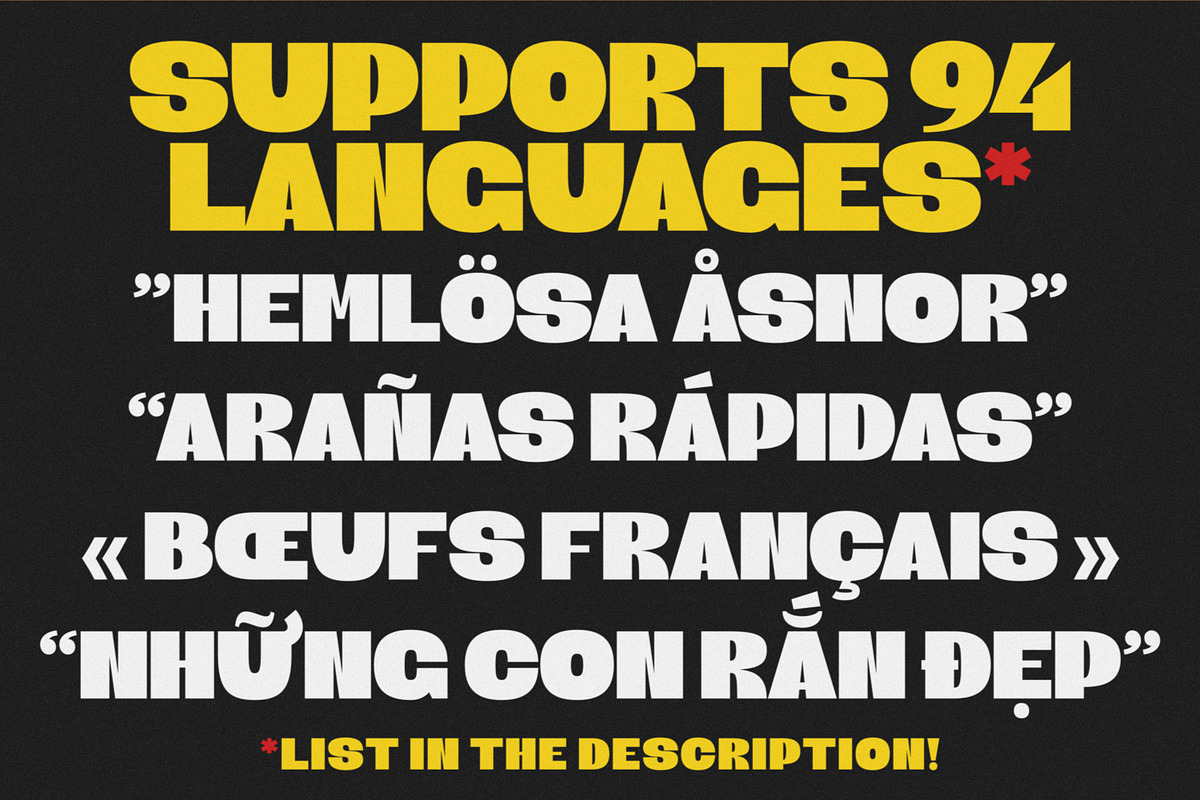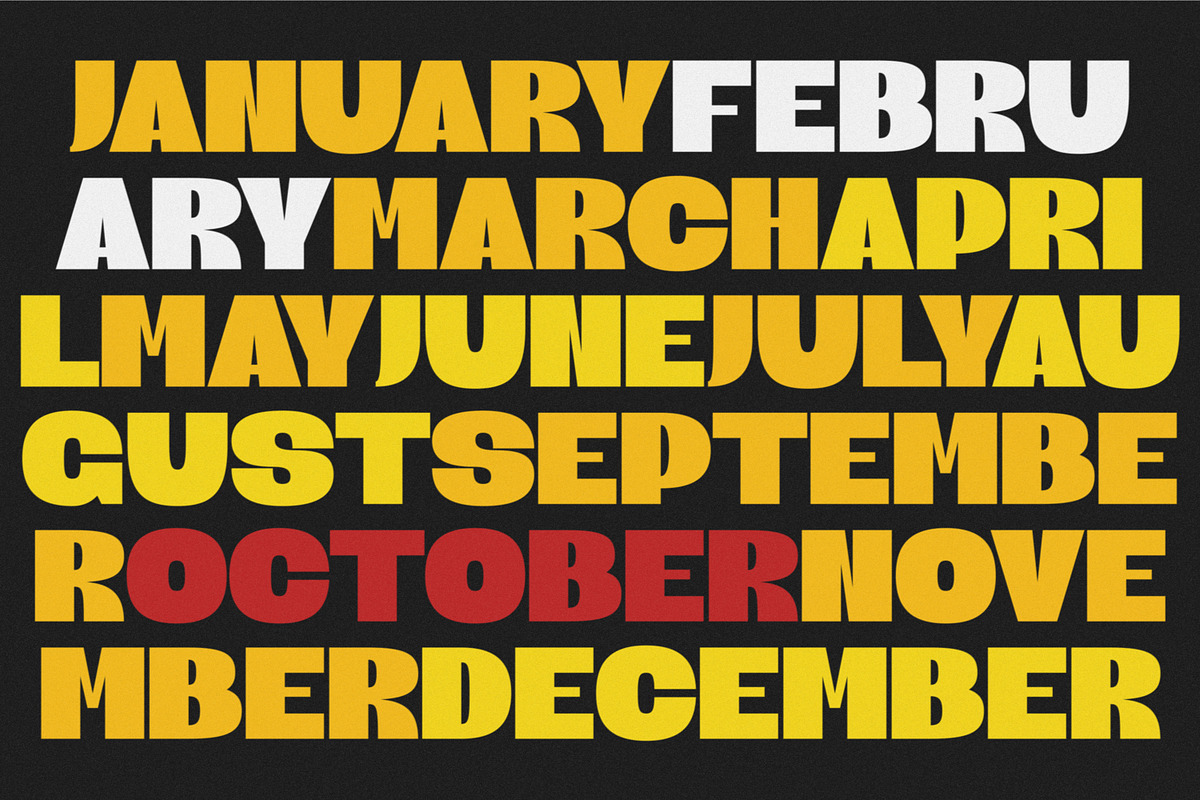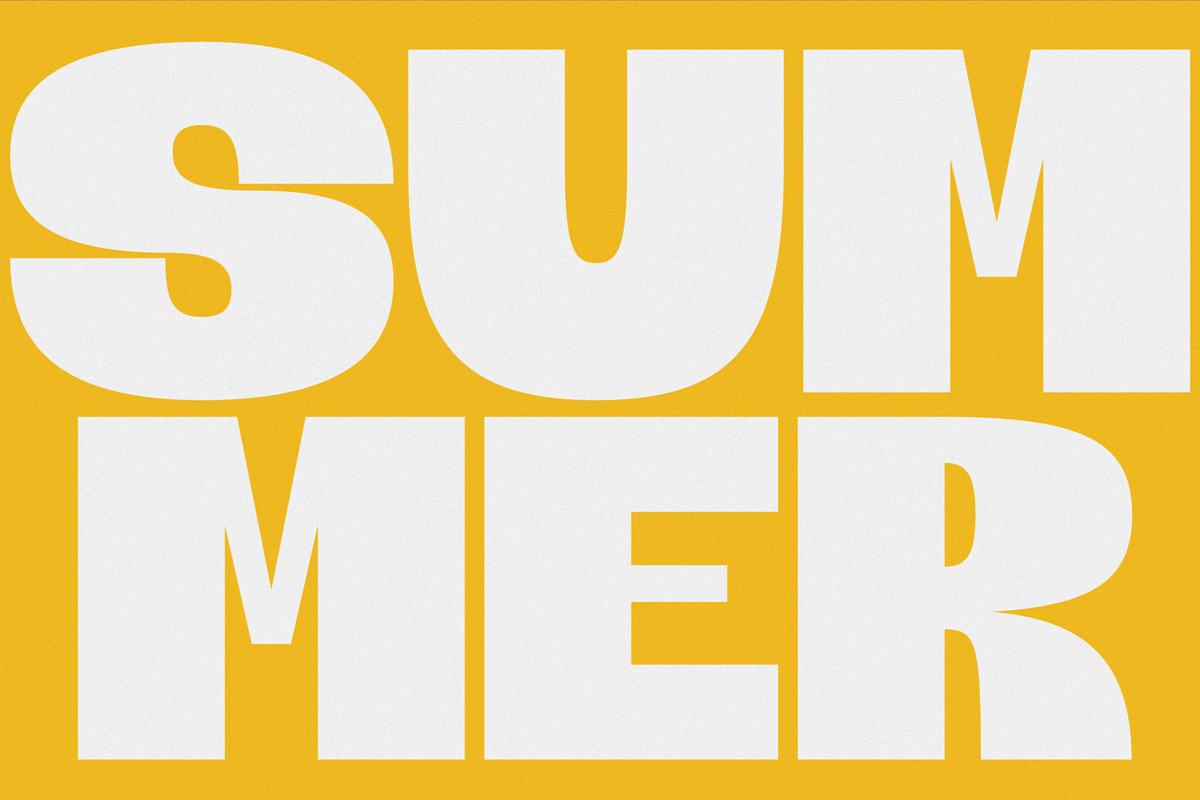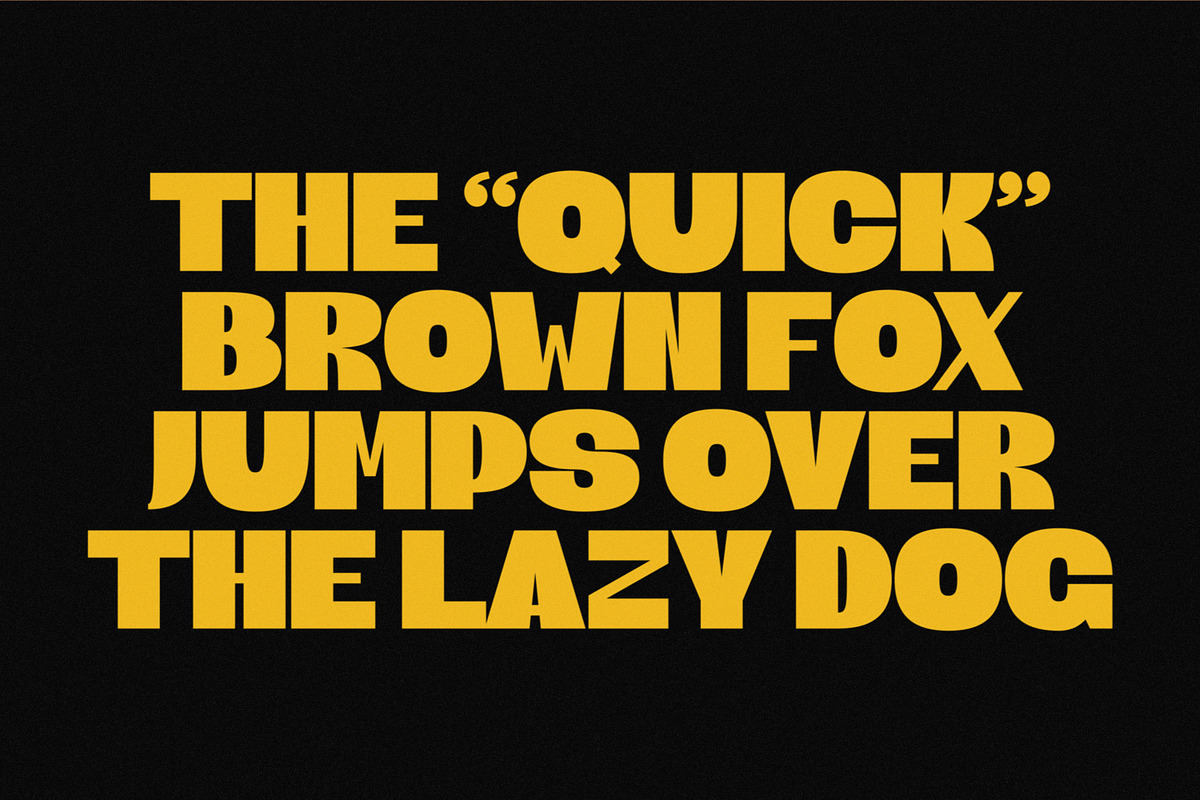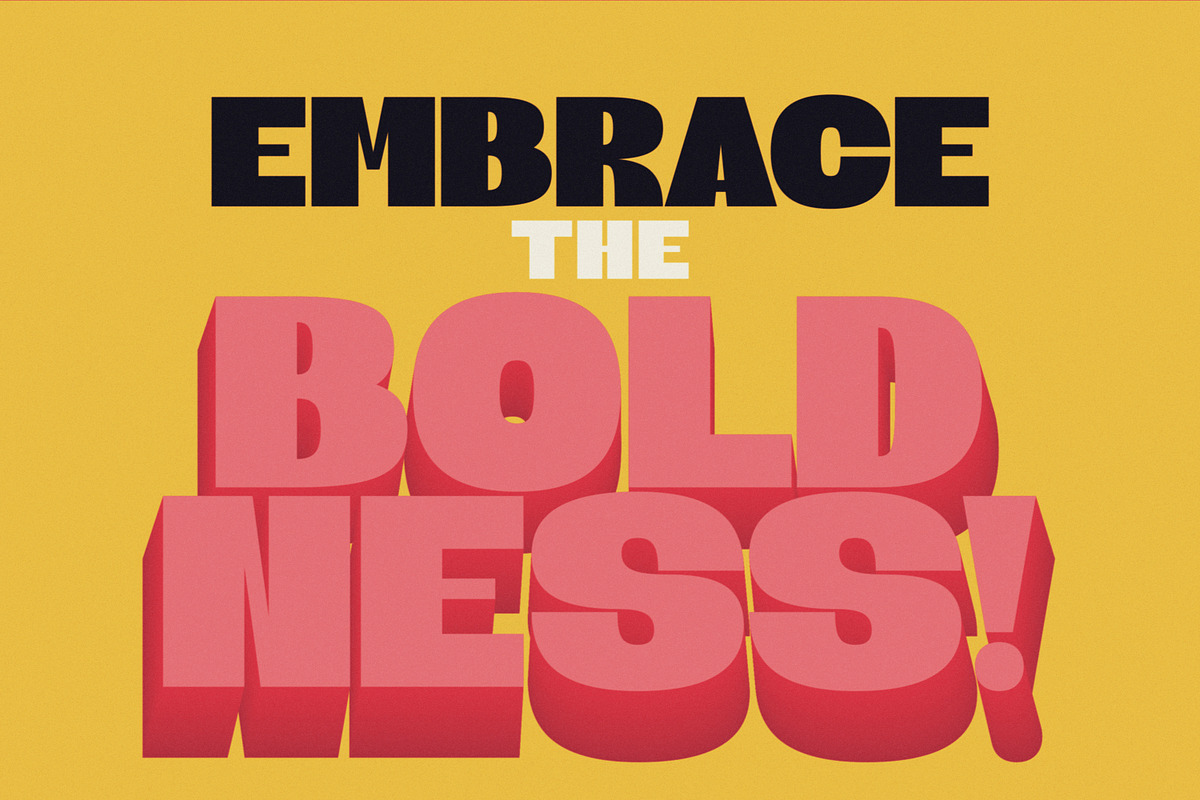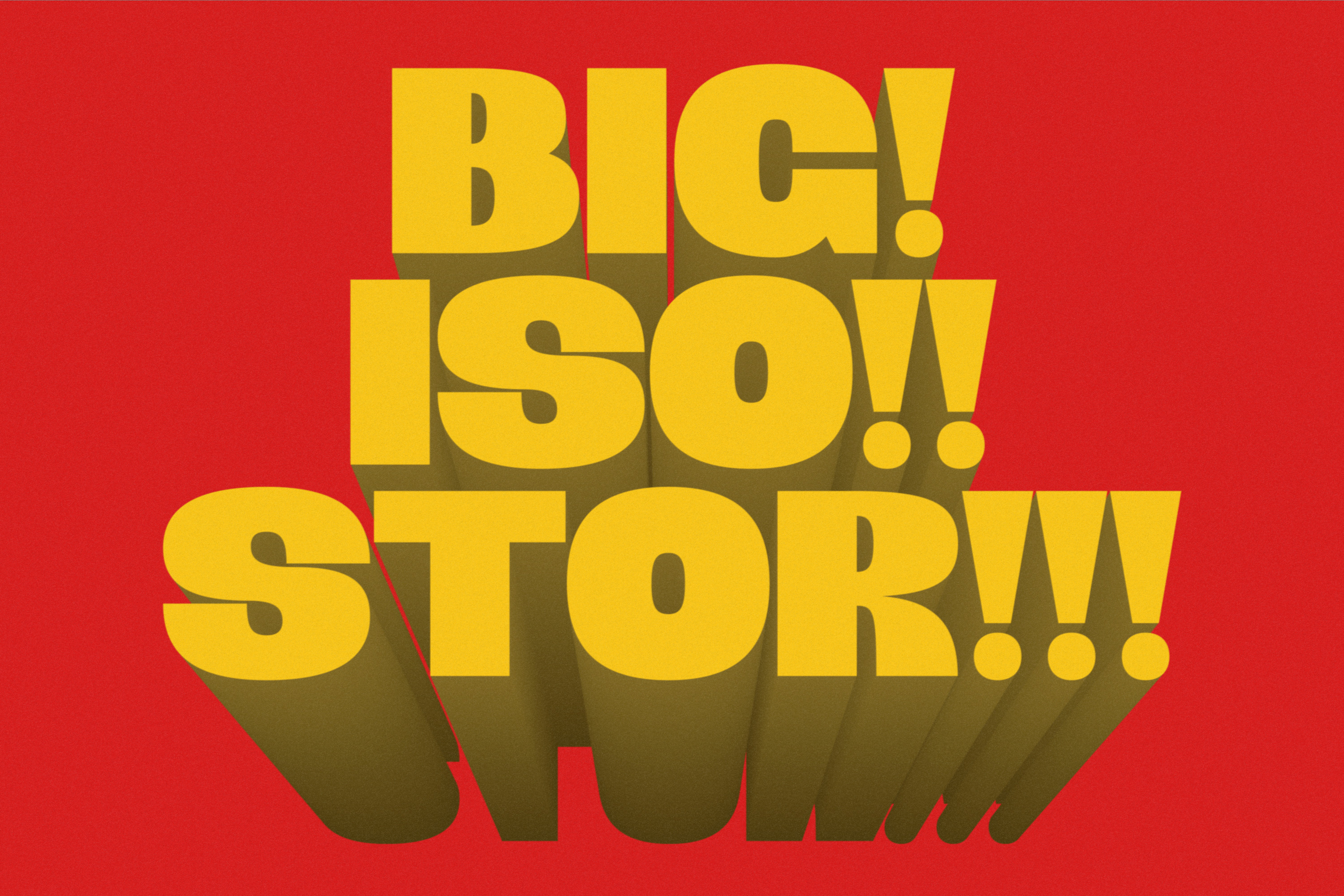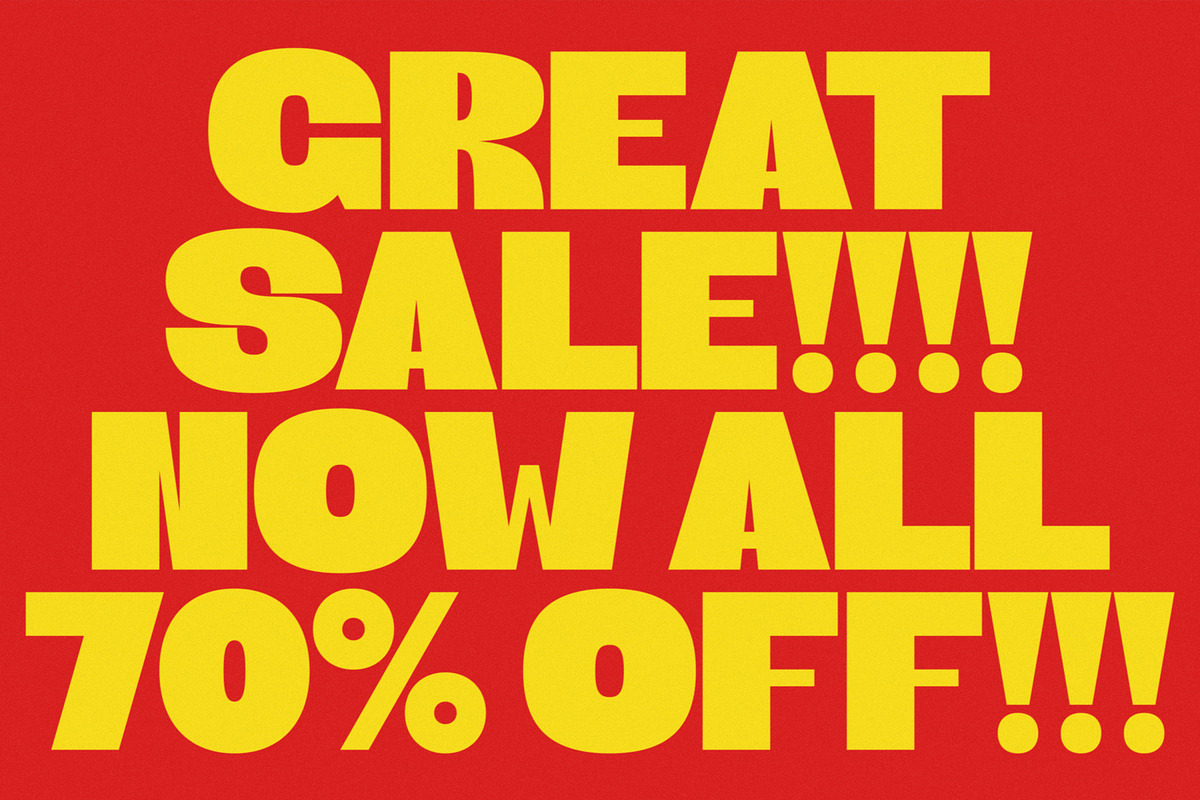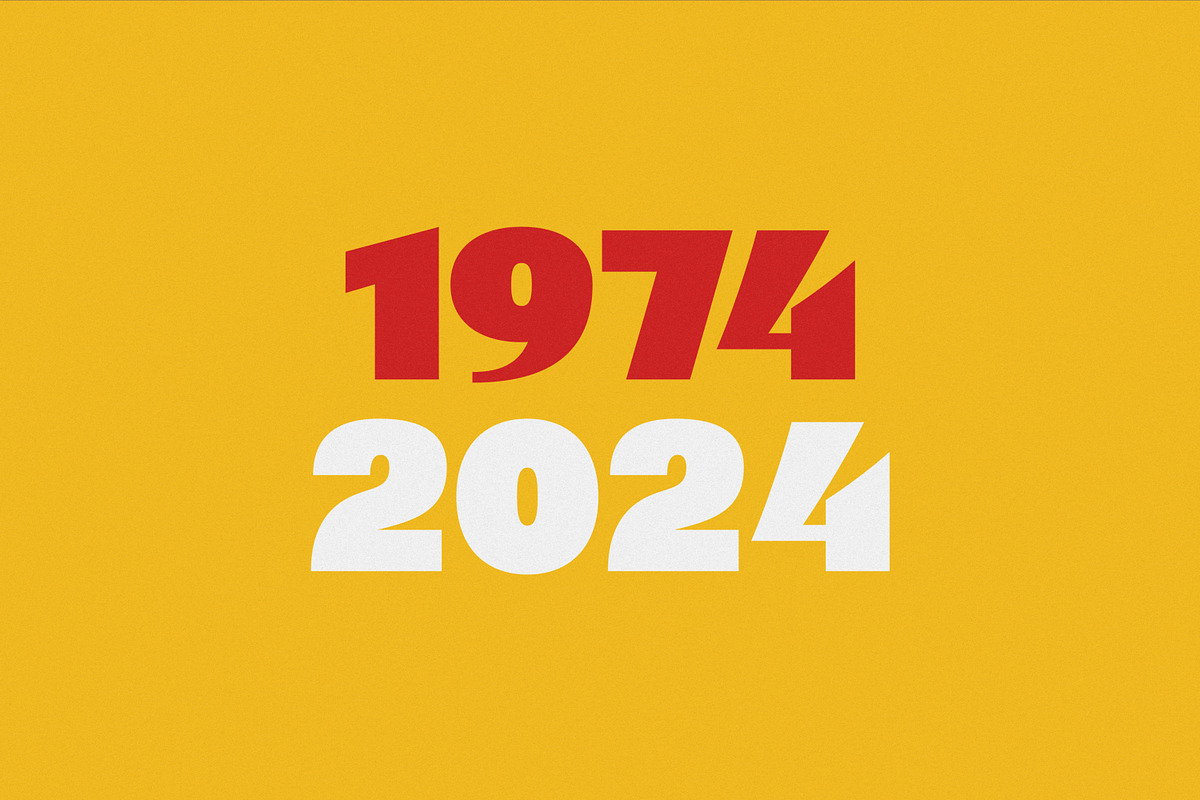
BIG! ISO!! STOR!!! Display Font
BIG! ISO!! STOR!!! is a simple bold sans-serif font. It's perfect for logos, branding, book covers, posters and such.